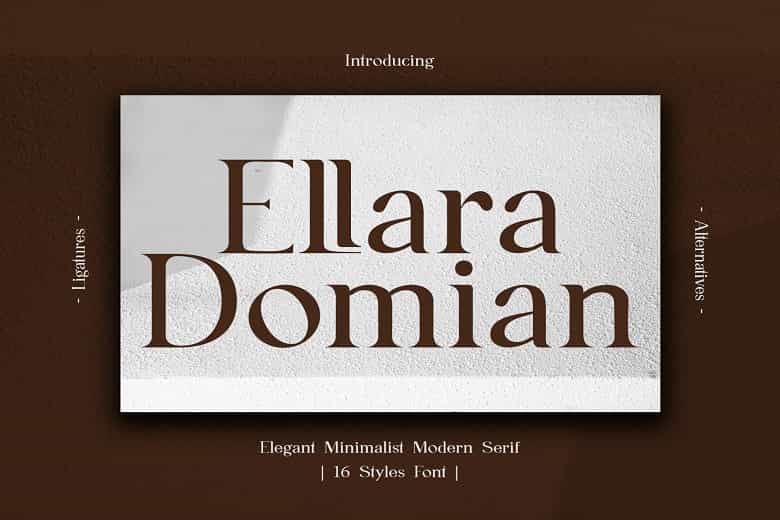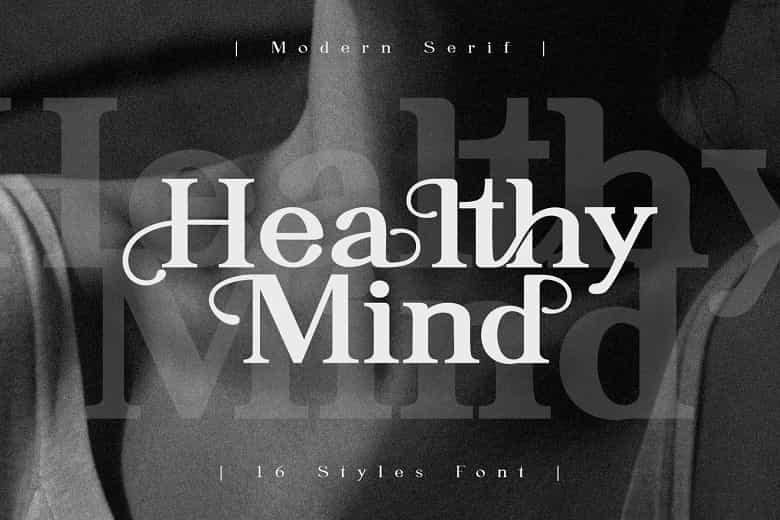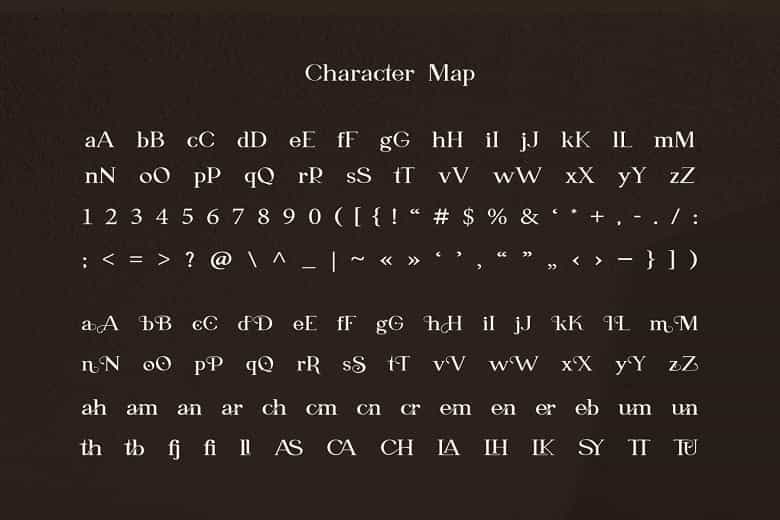
Ellara Domian is a beautiful and slightly elegant serif font with simple and minimalistic character design. Its sleek design and elegant look will suit projects that need a dash of elegance and classicist.